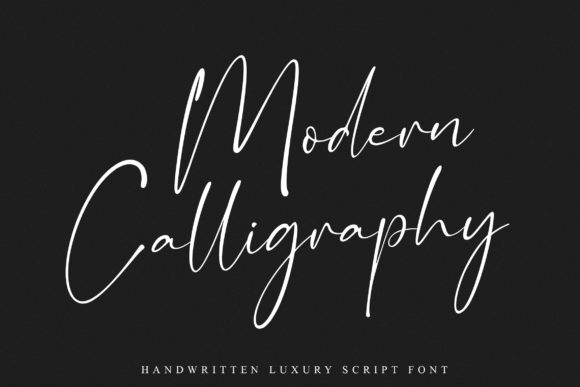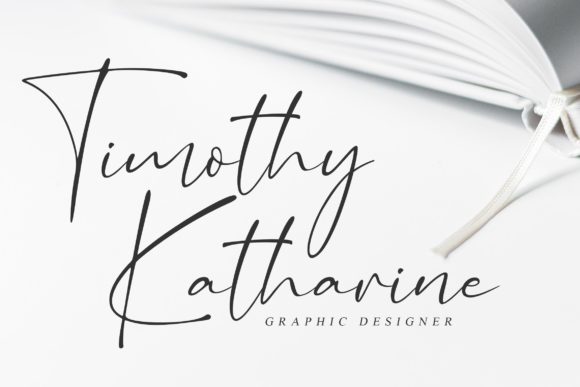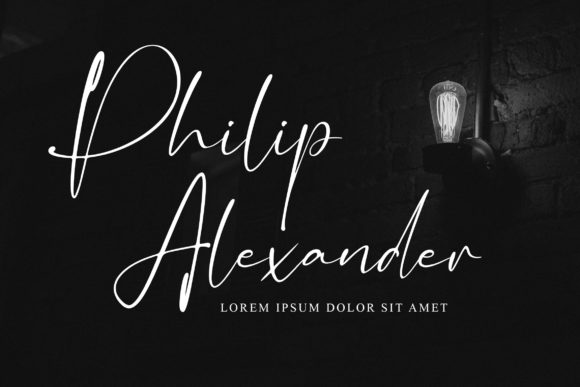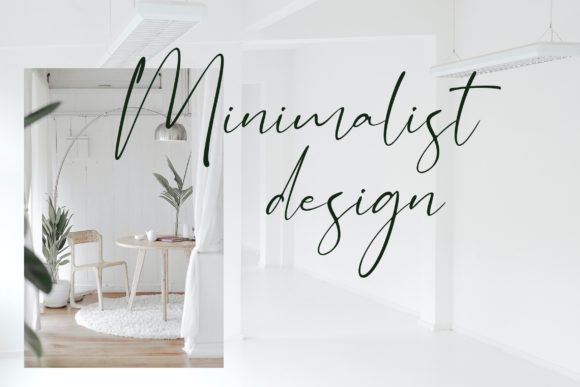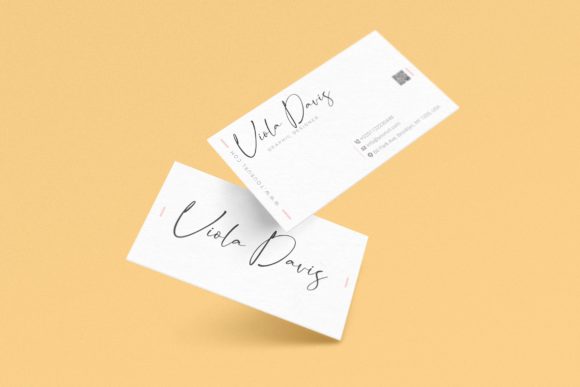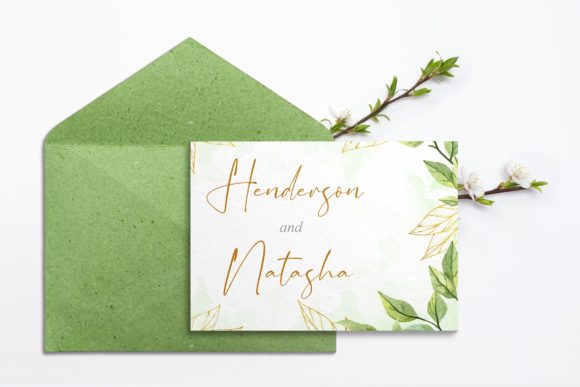
Introducing Glittery Font: Elevate Your Designs with Elegance and Sophistication
In the world of typography, a stylish font can make all the difference in elevating your designs from ordinary to extraordinary. If you’re a designer, crafty DIY enthusiast, or simply someone who appreciates beautiful typography, then you’re in for a treat. Say hello to Glittery Font, a modern calligraphy font that’s about to take your creative projects to the next level.
What is Glittery Font?
Glittery Font is a chic and stylish modern calligraphy font that exudes elegance and sophistication. With its flowing lines and beautiful swashes, this font is perfect for adding a touch of luxury to your designs. Whether you’re working on a branding project, creating wedding invitations, or designing promotional materials, Glittery Font is the perfect choice.
Key Features of Glittery Font
- Modern Calligraphy Style: Glittery Font boasts a modern calligraphy style that’s both fresh and timeless. Its elegant lines and curves make it perfect for designs that require a touch of sophistication.
- Chic Flair: This font features a chic flair that’s sure to make your designs stand out. Whether you’re creating a logo, invitation, or promotional material, Glittery Font is sure to add a touch of glamour.
- Versatile: Glittery Font is incredibly versatile and can be used for a wide range of projects, including branding, signature, wedding invitations, promotions, product packaging, and many more.
Glittery Font is a dream come true for designers and crafters who are looking for a stylish and elegant font to elevate their projects. With its modern calligraphy style and chic flair, this font is perfect for:
- Branding: Create stunning logos, business cards, and letterheads that exude elegance and sophistication.
- Wedding Invitations: Make your wedding invitations truly special with Glittery Font. Its beautiful swashes and flowing lines are sure to impress your guests.
- Promotions: Create eye-catching promotional materials, such as flyers, brochures, and posters, that are sure to grab attention.
- Product Packaging: Add a touch of luxury to your product packaging with Glittery Font. Perfect for high-end products, gift wrapping, and more.
Why Choose Glittery Font?
With so many fonts available, why choose Glittery Font? Here are just a few reasons:
- Unique and Exclusive: Glittery Font is a unique and exclusive font that’s sure to make your designs stand out.
- Elegant and Sophisticated: This font exudes elegance and sophistication, making it perfect for high-end designs.
In conclusion, Glittery Font is a stylish modern calligraphy font that’s perfect for designers, crafters, and anyone who appreciates beautiful typography. With its elegant lines, beautiful swashes, and chic flair, this font is sure to elevate your designs to the next level. Whether you’re working on a branding project, creating wedding invitations, or designing promotional materials, Glittery Font is the perfect choice. So why wait? Get your hands on Glittery Font today and start creating stunning designs that exude elegance and sophistication.